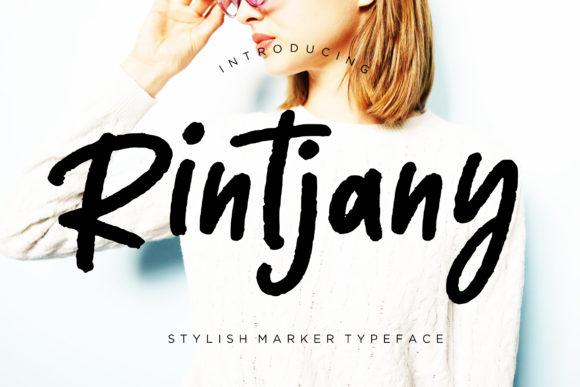
Dive into the world of Rintjany, a display brush font that captivates with its unique style and natural charm. Crafted meticulously by CreatypeStudio, this font family is an ode to creativity, transforming ordinary text into extraordinary statements. Let your designs blossom with the organic flow of Rintjany, a font carefully designed to mimic the beauty of handmade brushstrokes.
With Rintjany, you can craft designs that feel both authentic and modern. Its unpretentious presence adds a touch of sophistication to logos and branding, while its whimsical nature breathes life into invitations, posters, and social media graphics. Unleash your imagination and explore the boundless possibilities that await with Rintjany.
Step into a world where letters dance with grace, where each word carries a story. Rintjany's alluring curves and dynamic strokes create a visual symphony that captures attention and ignites emotions. Whether you're a seasoned designer seeking a touch of authenticity or a creative explorer embarking on a new journey, Rintjany is your perfect companion.
Experience the beauty of imperfections, the charm of the handmade, and the power of authenticity with Rintjany. Its carefully crafted characters evoke a sense of nostalgia, reminiscent of handwritten letters and vintage typography. Embrace the timeless elegance of Rintjany and let your designs speak volumes.
Say goodbye to ordinary, hello to extraordinary. Rintjany is not just a font; it's an invitation to express yourself freely, to make a statement, and to leave an indelible mark on the world. Download Rintjany today and unlock the potential of your creativity.